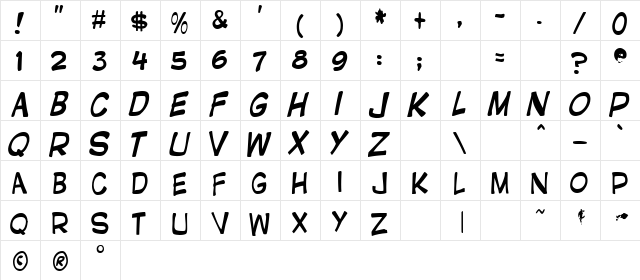
GNATFONT Regular
Design Context for GNATFONT Typeface
GNATFONT is a composed and adaptable typeface that performs quietly and consistently across a wide range of design contexts.